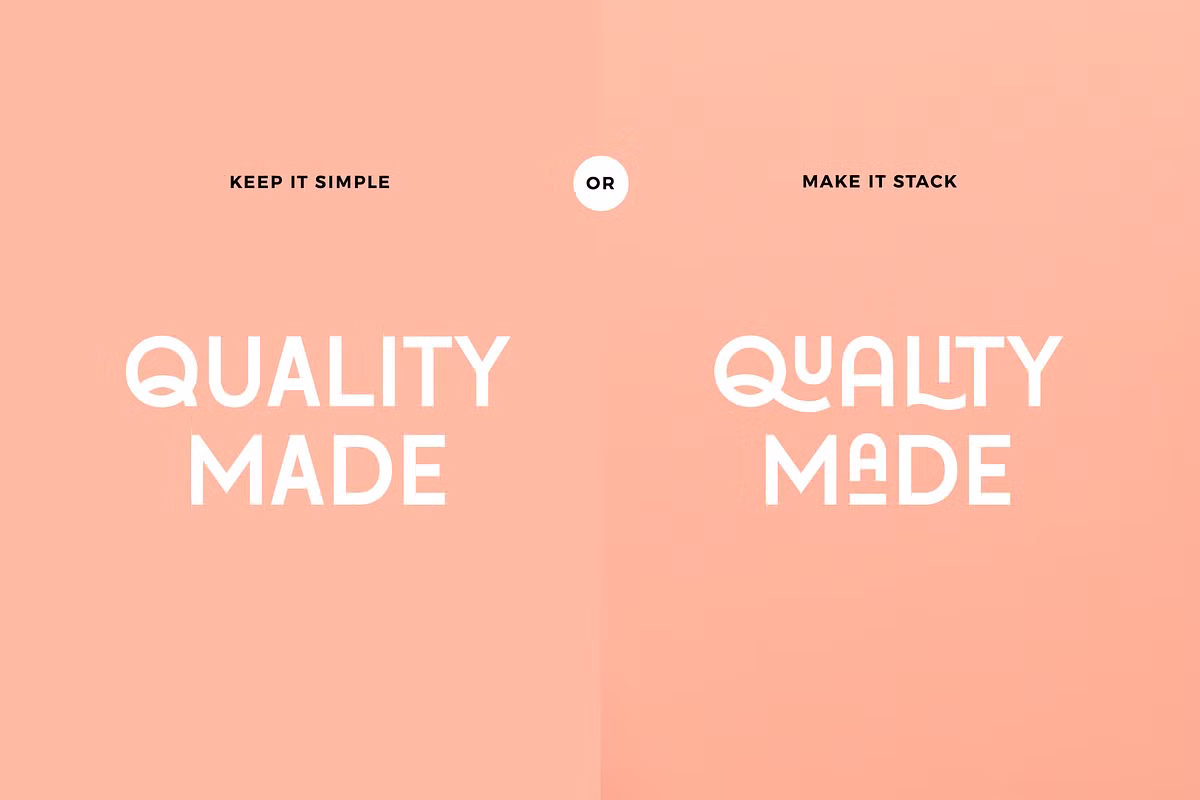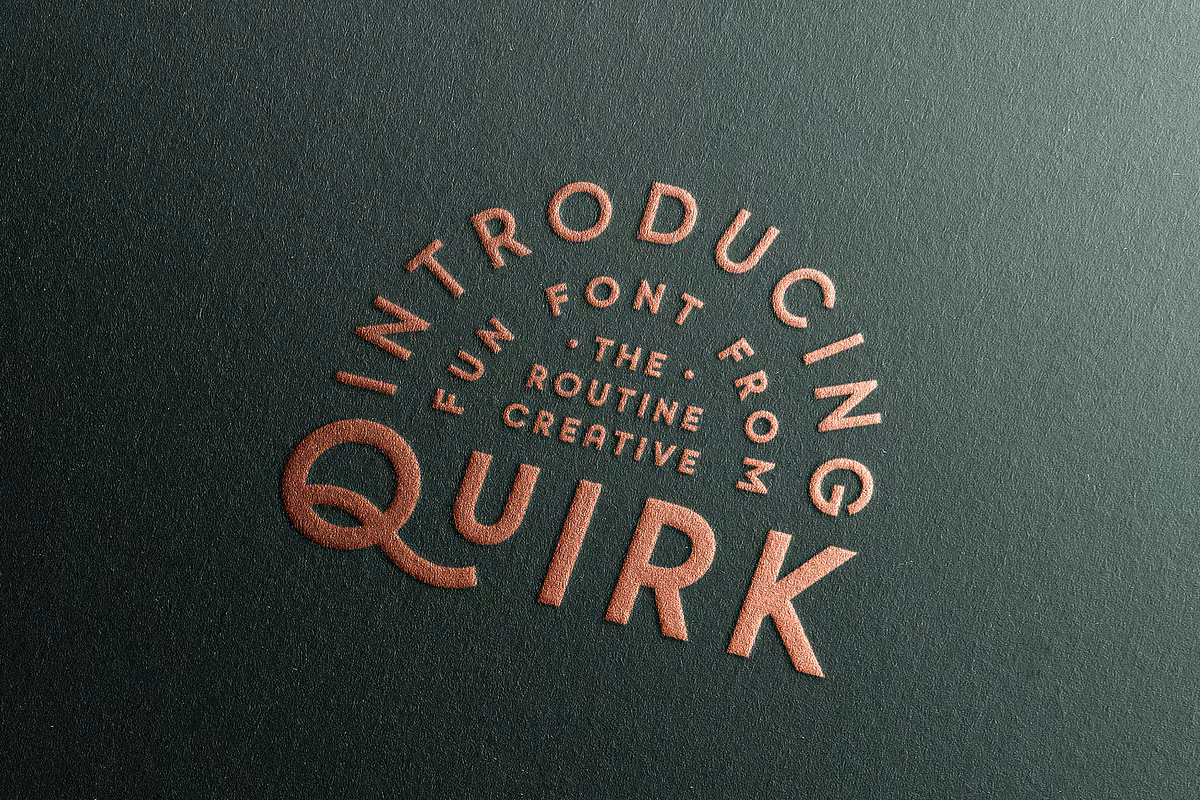
Quirk - Fun Display Font
Introducing Quirk: The Playful Stackable Display Font
Quirk is a really cool font that’s all about having fun with words. It’s a stackable display font, which means you can mix and match different parts to create something totally unique. This font is perfect for designers who want to add a bit of personality to their work. You can use it to make all sorts of creative typography, from playful headings to eye-catching graphics. The best part is, you can customize it to fit your style, so the possibilities are endless.
Whether you’re working on a project that needs a little extra flair or you just want to try something new, Quirk is definitely worth checking out. It’s a great way to add some visual interest to your designs and make them stand out from the crowd. With Quirk, you can create designs that are truly one-of-a-kind, and that’s what makes it so exciting to work with.
Colorful display of the Quirk font showcasing its playful nature
Quirk’s playful design encourages creativity.
Design Style of Quirk
Quirk’s design is all about being bold and playful, which makes it great for lots of different design projects. So, if you’re making a poster, creating social media graphics, or working on branding materials, Quirk is a good choice because it has a fun and eye-catching look.
One cool thing about Quirk is that it’s in all-caps, which really makes your words stand out. Plus, you can stack the letters on top of each other, which adds a pretty dynamic touch that you don’t usually see with regular fonts. This makes Quirk really versatile and perfect for designers who want to add some personality to their work.
Whether you’re going for a fun, casual vibe or something a bit more striking, Quirk is definitely worth considering. Its unique look and feel can really help your designs pop and grab people’s attention. Quirk’s playful style fits with lots of different themes. It’s good for both everyday and fancy situations, and it changes easily to match different feelings and looks.
Examples of typography using Quirk font in various designs
Quirk fits various design themes seamlessly.
Character Sets and Alternate Characters
Quirk comes with a variety of character sets that enhance its usability. Featuring all capitalized letters, the font offers alternate characters and small caps alternate characters, providing you with options to diversify your typographic designs. Additionally, it includes numbers and special characters, making it a comprehensive choice for any creative project.
Use Cases for Quirk
Quirk’s playful nature lends itself to a variety of creative applications. Here are some prominent use cases where Quirk shines:
• Branding: Quirk is an excellent choice for brands looking to convey a fun and approachable image. Its unique character can be integrated into logos, packaging, and marketing materials.
• Event Posters: The font’s stackable display nature makes it ideal for event promotions, such as concerts, festivals, and community gatherings, where attracting attention is key.
• Social Media Graphics: Create eye-catching posts and stories that stand out in crowded feeds. Quirk’s bold design ensures your messages are seen and remembered.
• Children’s Products: For products aimed at children, Quirk’s playful design can help make them more appealing and engaging, from book covers to educational materials.
Pairing Suggestions for Quirk
To maximize the impact of Quirk in your design projects, consider pairing it with bold sans serif fonts. This combination allows for a balanced visual hierarchy, where Quirk can shine without overwhelming the viewer. Here are a few pairing suggestions:
Whether you’re making a brand look cool, planning an event, or just posting on social media, Quirk can help make your words stand out and connect with the people you’re trying to reach. It’s a great way to add some personality to your designs and make them more interesting. By using Quirk, you can make your projects more fun and engaging, and that’s what it’s all about – having fun and being creative!